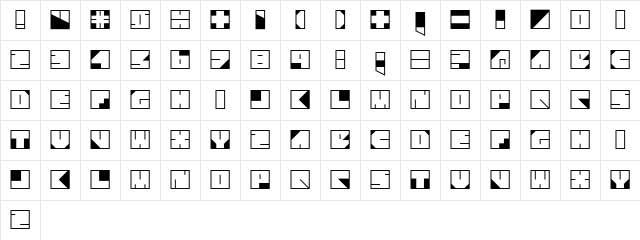
Four Four Black
Designer: Zoya Feldman
Design Context for Four Four
Four Four is a composed and adaptable typeface that performs quietly and consistently across a wide range of design contexts.
Pro Tip: Use Four Four in both headline and body roles to test its range before committing to a single application.